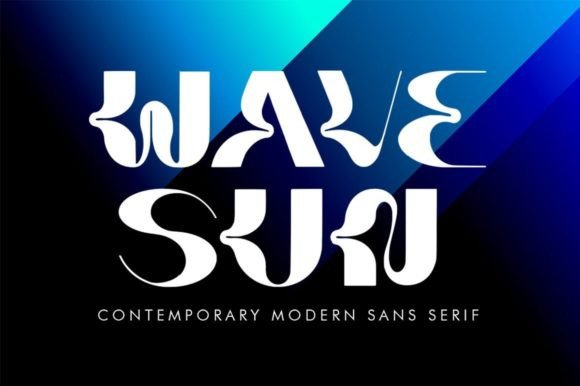
Embrace the Avant-Garde with Wavesun: A Font Symphony for Bold Visionaries
In a world saturated with visual noise, distinction is the ultimate luxury. Introducing Wavesun, a revolutionary display font that shatters the boundaries of conventional typography, propelling your designs into the realm of the extraordinary.
Crafted by the visionary minds at Vultype, Wavesun is a sans-based masterpiece that defies expectations. Its meticulously engineered lowercase characters dance across the page with an ethereal grace, exuding a symphony of futurism and modernity.
Unleash your inner rebel and let Wavesun ignite your creative spirit. This font is a blank canvas, awaiting your artistic strokes to bring it to life. Whether you're a seasoned designer or just starting your typographic journey, Wavesun is your gateway to greatness.
With Wavesun, your designs will transcend the ordinary, captivating audiences with its undeniable allure. It's the perfect font for logotypes, branding, posters, social media graphics, and any project that demands a bold and unforgettable statement.
As a designer, you deserve a font that matches your ambition, a font that amplifies your vision and propels your creativity to new heights. Wavesun is that font. Its unique and dynamic character set will transform your designs into thought-provoking masterpieces, leaving a lasting impression on all who encounter them.
Don't settle for mediocrity. Embrace the power of Wavesun and let your designs reach their full potential. Experience the thrill of standing out from the crowd, of creating something truly remarkable.
Dare to be different. Dare to be bold. Dare to make a statement with Wavesun.